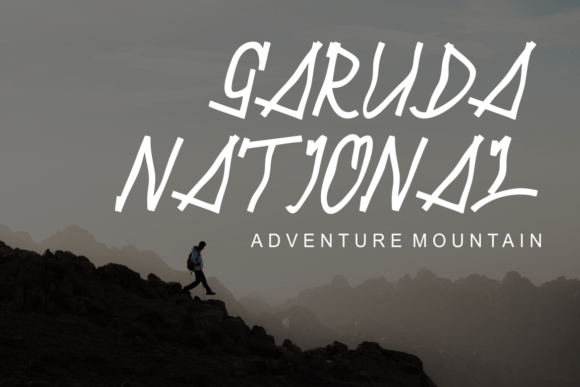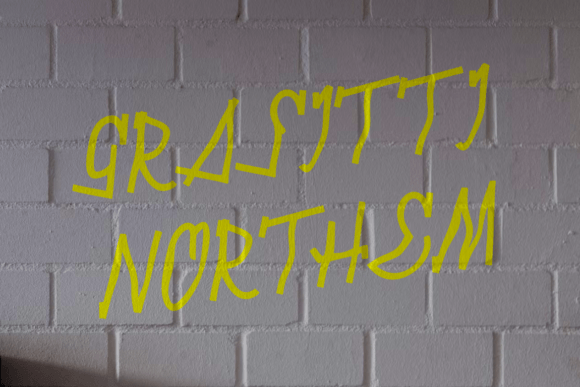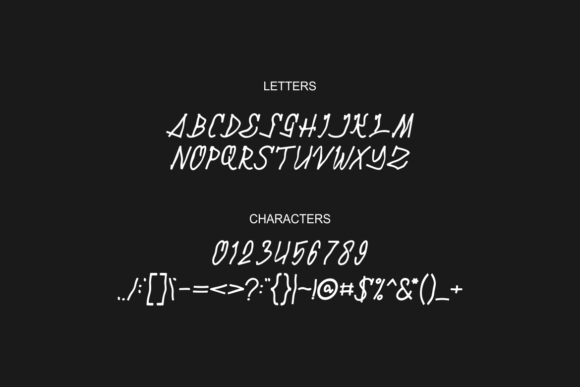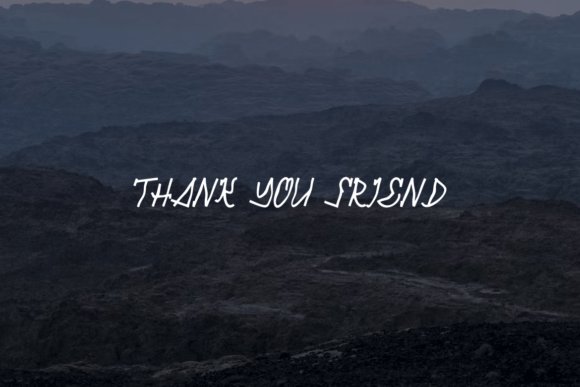
Adding a Touch of Personality to Your Designs
Have you ever been working on a project, pouring your heart and soul into it, and just needed that extra something to make it truly special? That’s when the magic happens – you stumble upon the perfect font, and suddenly your design comes alive.
For designers looking to add a casual and personal touch to their projects, look no further than the Designer Handal Font. This playful, handwritten font is perfect for creating a sense of warmth and approachability in your designs. Whether you’re working on a branding project, a social media campaign, or a website, Designer Handal Font is a valuable addition to your design toolkit.
With its unique, messy look, Designer Handal Font is a great way to inject some personality into your designs. Its versatility makes it a valuable asset for designers of all levels, from beginners to seasoned pros.
Designer Handal Font Key Features
- Font Family: Designer Handal Font is a unique and stylish font family that includes multiple weights and styles.
- Unique Characteristics: Features a distinctive and elegant design, with intricate details and subtle flair, making it perfect for branding and packaging design.
Designer Handal Font Review
I recently had the chance to work with the “Designer Handal Font” and I must say, it’s a mixed bag. There are some aspects that shine, but others that leave me wanting more.
- Unique style: The font has a distinct, modern look that’s perfect for creating eye-catching headlines and titles.
- Good legibility: Despite its unusual style, the font is surprisingly easy to read, even at smaller font sizes.
- Wide language support: The font includes a wide range of languages, making it a great choice for international projects.
- Limited character set: While the font includes a wide range of languages, it’s missing some common characters and glyphs.
- Not ideal for body text: While the font is great for headlines, it’s not the best choice for large blocks of body text due to its unusual style and limited legibility.
- Lack of consistency: The font’s style can be inconsistent, with some letters looking more rough or uneven than others.
The “Designer Handal Font” is a solid choice for projects that require a unique, eye-catching headline font. However, it falls short in other areas, making it a less-than-ideal choice for larger projects or body text. With some tweaks and improvements, this font could be a real showstopper. As it stands, it’s a good option for designers who want to add some visual interest to their projects.
The Designer Handal Font is ideal for:
- Designing invitations and event materials.
- Creating business cards and branding materials.
- Adding a touch of elegance to digital documents.
For the most out of the Designer Handal Font, use it in combination with bold colors and simple designs to create a visually appealing effect.